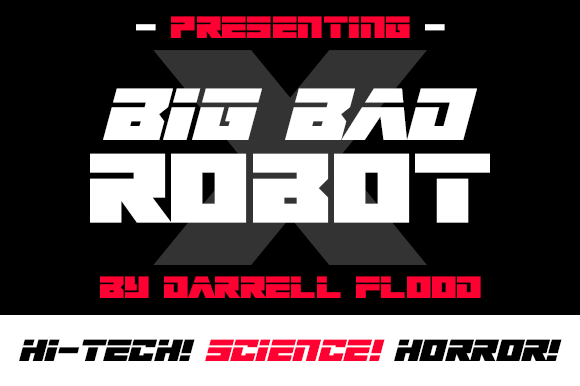
The Big Bad Robot Font: A Bold and Fearless Design Companion
I’ll never forget the design project that led me to discover the Big Bad Robot font. I was working on a branding campaign for a tech startup, and I needed a font that would convey confidence, innovation, and a touch of edginess. After hours of scouring font libraries and testing different options, I stumbled upon Big Bad Robot. Its bold, thick letters and unique shapes immediately caught my attention, and I knew I had found the perfect fit.
So, what makes Big Bad Robot font so special? Here are a few things I love:
• Unique letterforms: Each letter has a distinct shape and character, making it perfect for creating eye-catching designs.
• High versatility: Big Bad Robot font works well for a wide range of projects, from posters and logos to social media graphics and presentations.
• 💥 Impactful: This font is not for the faint of heart – it’s bold, attention-grabbing, and perfect for making a statement.
Of course, no font is perfect, and Big Bad Robot has a few quirks:
• 🤔 Legibility at small sizes: While the font looks amazing at larger sizes, it can become a bit tricky to read at smaller sizes (e.g., body text).
• ⚠️ Limited font weights: Big Bad Robot is primarily a bold font, which can limit its use for designs that require a range of weights.
The Designer Inspiration Behind Big Bad Robot Font
While the true story behind Big Bad Robot font remains a mystery, it’s easy to imagine that its designer was inspired by the world of robotics and technology. Perhaps they wanted to create a font that would evoke the feeling of machinery, innovation, and progress. Whatever the inspiration, the result is a font that’s both bold and beautiful.
What type of projects is Big Bad Robot font best suited for? Big Bad Robot font is perfect for projects that require a bold, attention-grabbing font, such as posters, logos, social media graphics, and presentations.
Is Big Bad Robot font suitable for body text? While Big Bad Robot font can be used for body text, it’s primarily designed for display purposes. It may become tricky to read at smaller sizes.